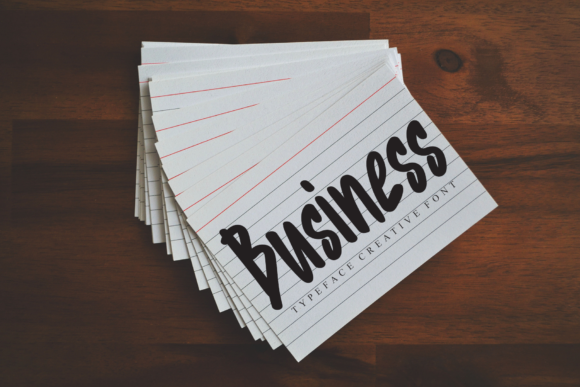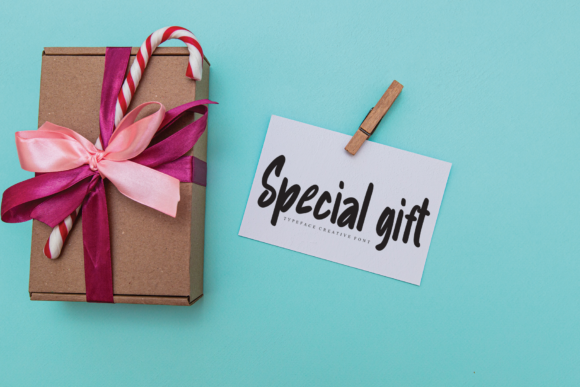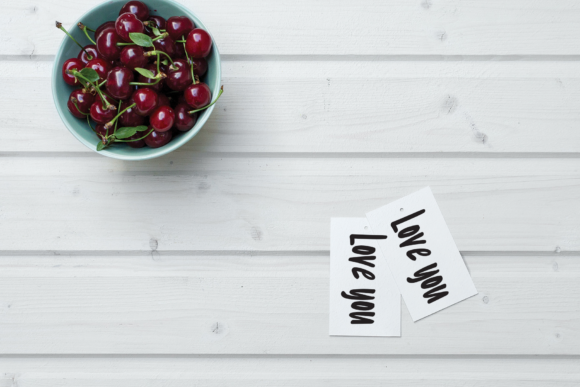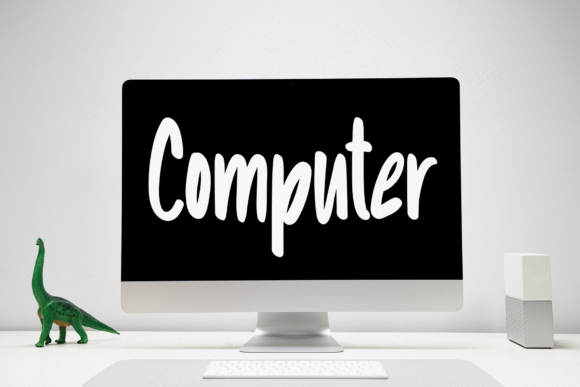
Scratches Font
About Scratches Font
Scratches is a cool, bold and readable handwritten font. Simple but with a strong visual effect, this font will instantly make your creation more appealing than any others.